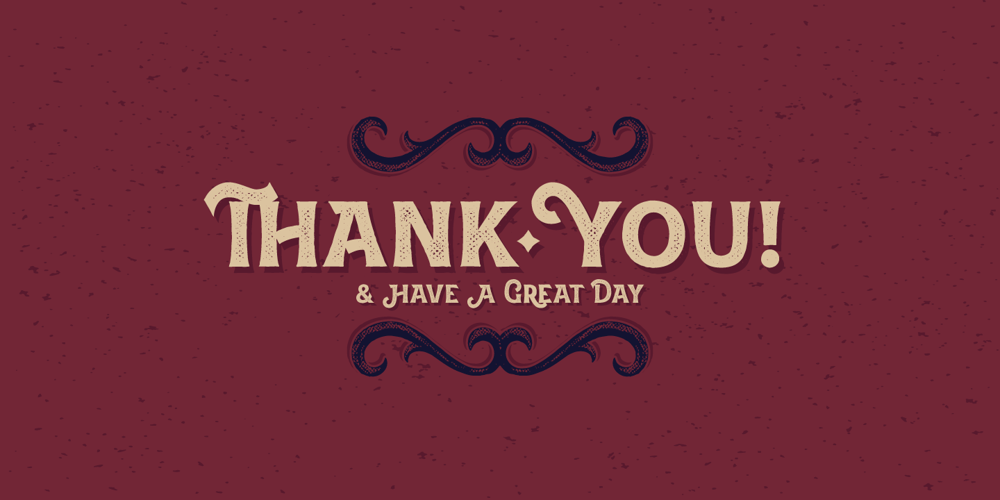
La Belman Font Family was designed by Gleb Guralnyk and published by Gleb Guralnyk. La Belman contains 2 styles and family package options. Presenting a vintage font set named La Belman. It is composed of a clean version and one with rough textured effects. Lots of ligatures will help you make your lettering more unique.